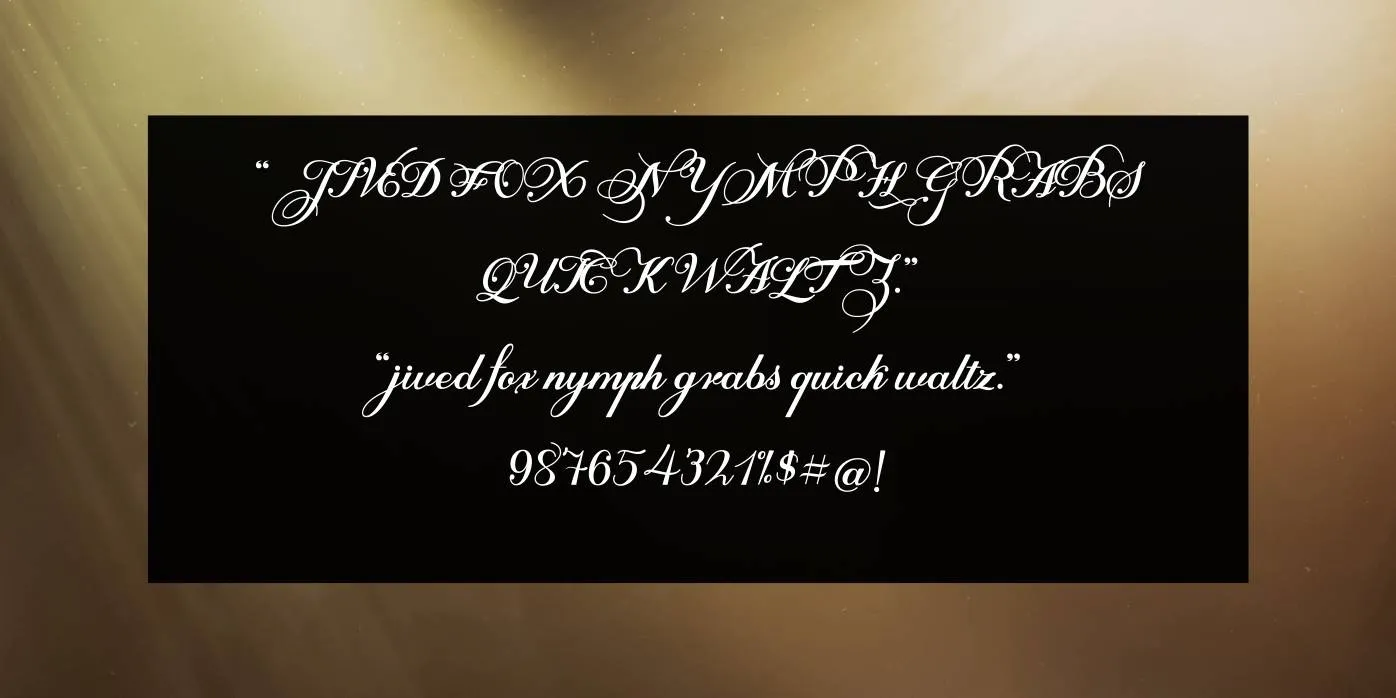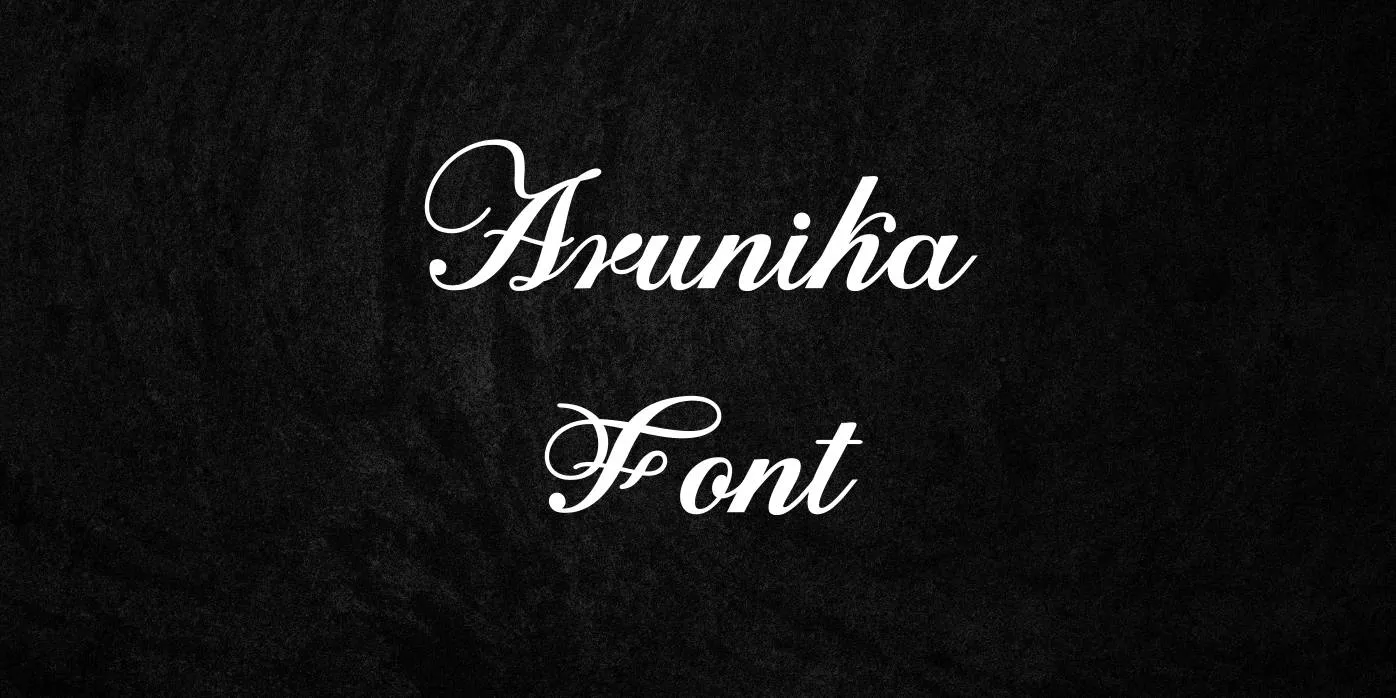
Arunika Font
Arunika is a calligraphy font family created by Indian Type Foundry. It is named after the Hindi word for “sunrise”. The typeface includes three weights (light, regular and bold) and is suited for both body text and headlines. The glyph of this font has both round and square shapes.
The corners are slightly rounded, making it friendly and approachable. The x-height is tall, which makes it highly legible. It has a condensed texture style and has a pairing personality with other handwritten style typefaces just like bakery font. This typeface was designed with versatility in mind.
It can be used for a wide range of applications, from corporate to editorial design. This font style is also commonly used in the Canva software. This font is an excellent choice for both digital and print projects.